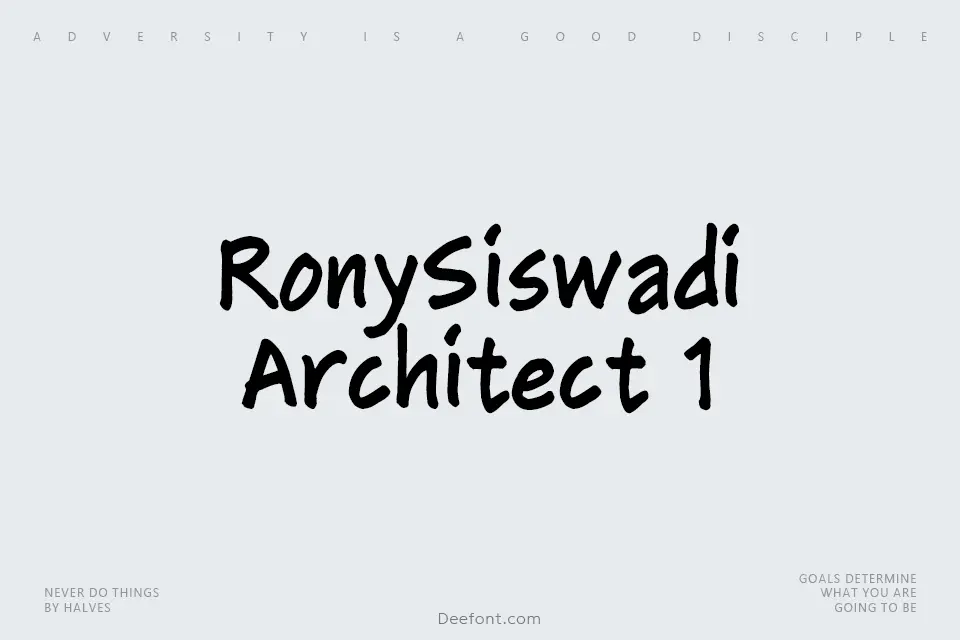
RonySiswadi Architect 1 Font
RonySiswadi Architect 1 is a precise handwritten typeface inspired by traditional architectural lettering. Its clean, structured strokes and distinct legibility make it ideal for technical drawings, blueprints, and modern design projects. This versatile font adds a professional yet personal touch to creative headers, detailed notes, and minimalist layouts.
Designed by:Rony Setya Siswadi